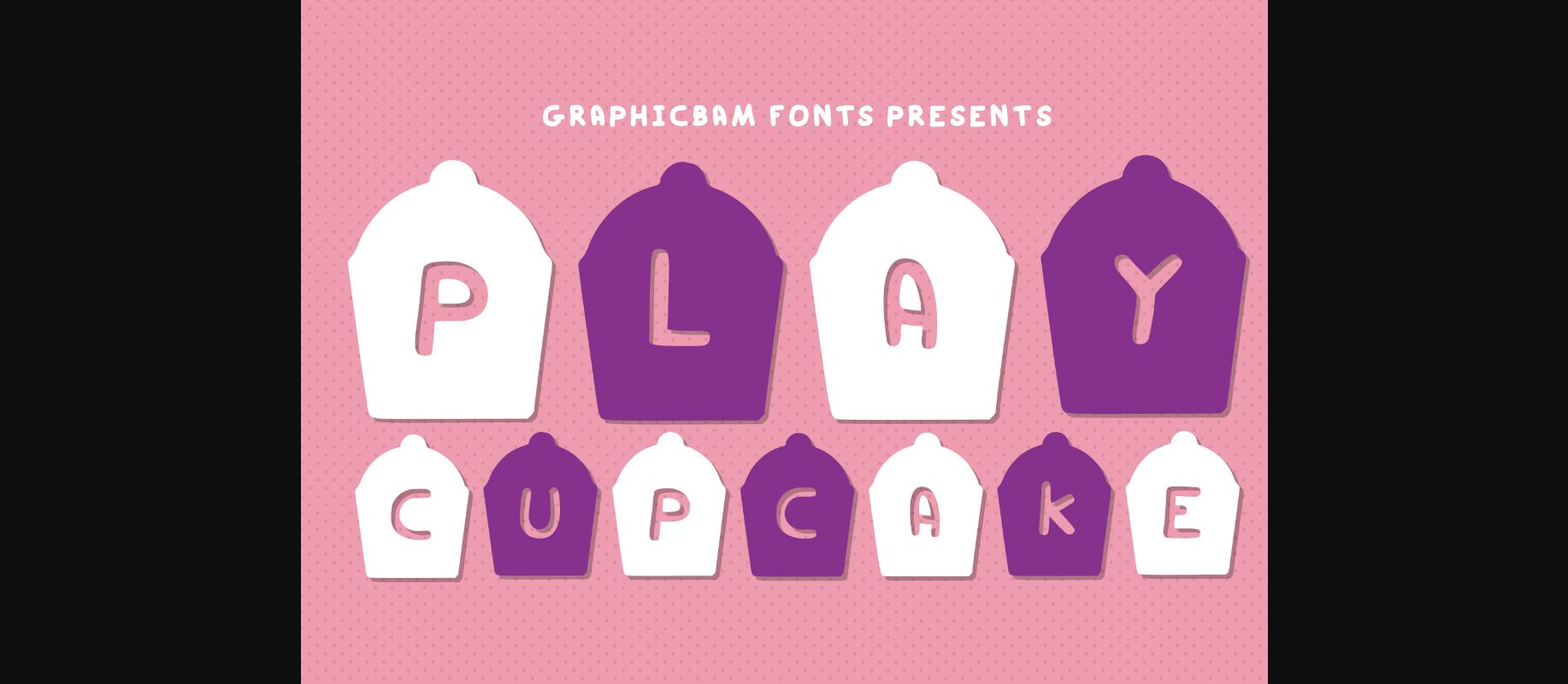
About Play Cupcake Font
Play Cupcake is a set of sweet baked treats with a playful, child-like decorative font. It is perfect to spell out anything to do with cupcakes! Handwritten with rounded sides make it a friendly and joyful font. Great for schools, home teaching, or a craft project.